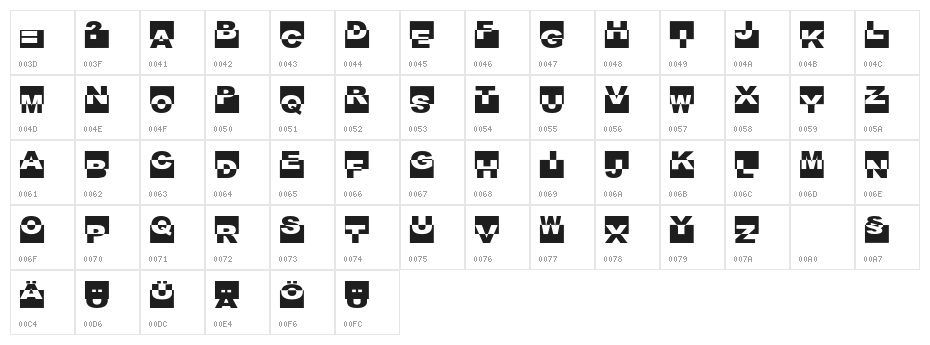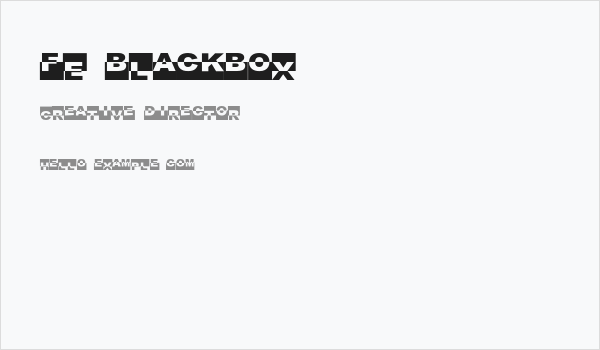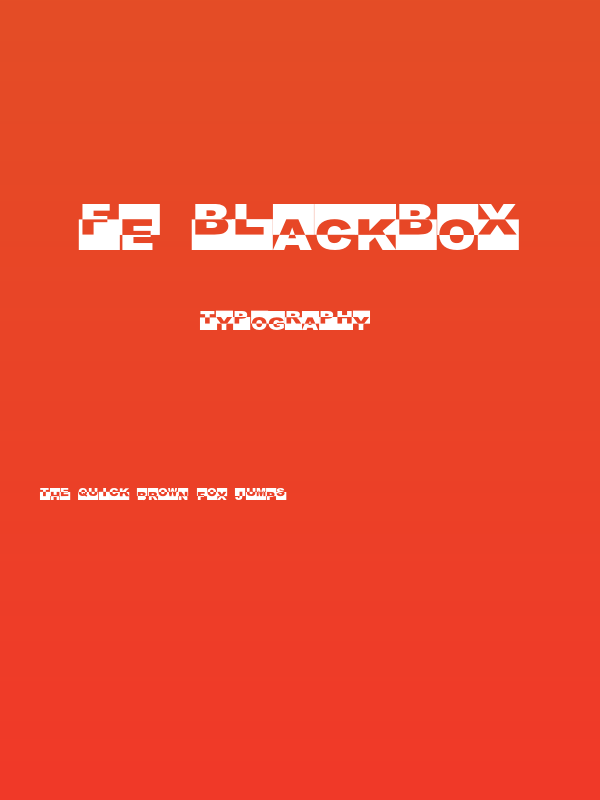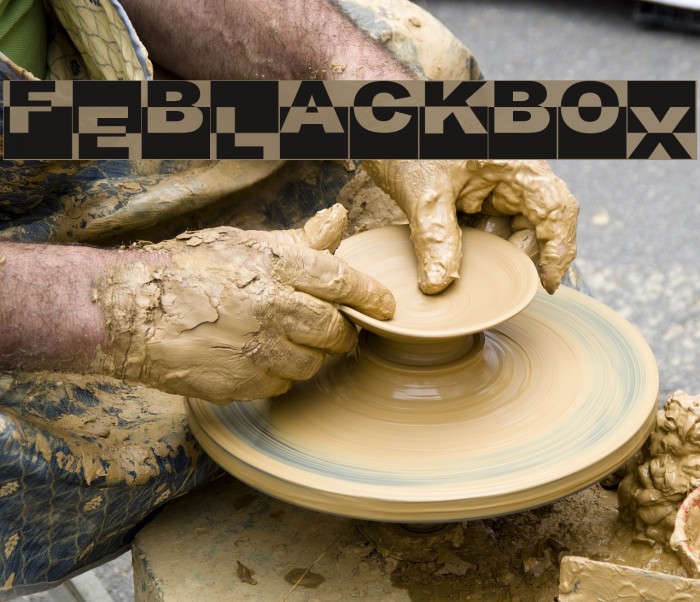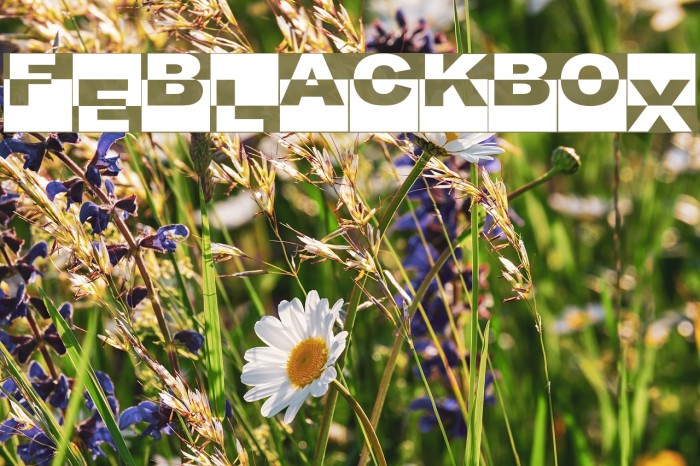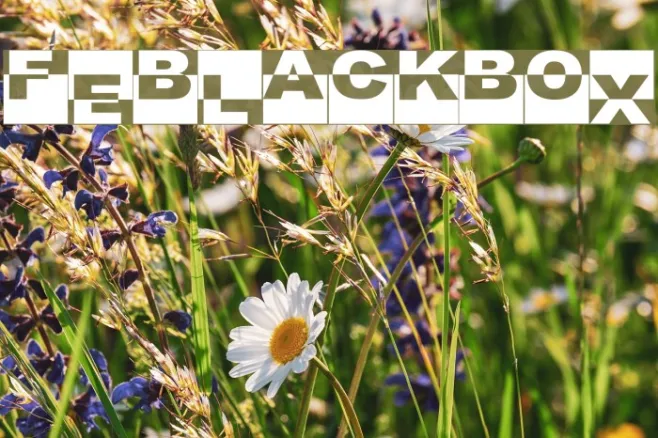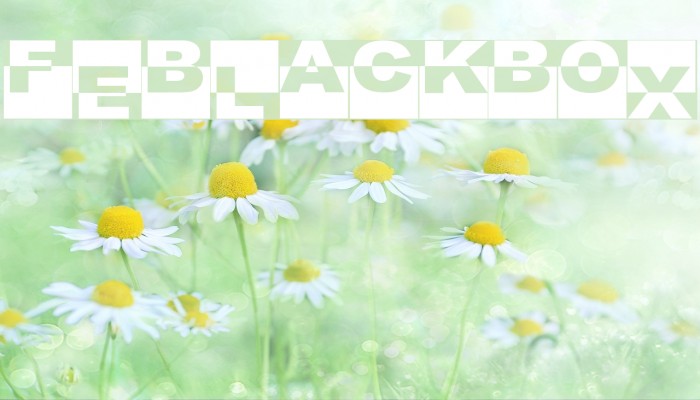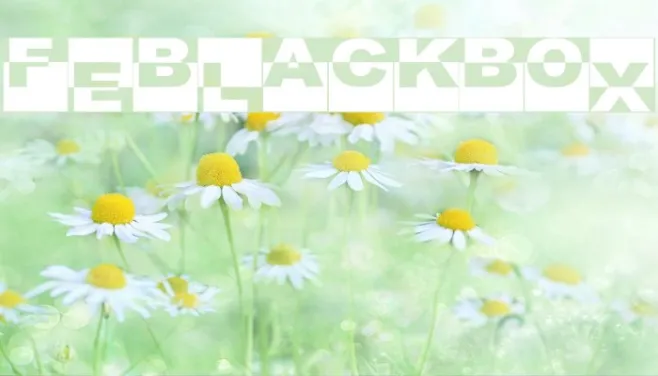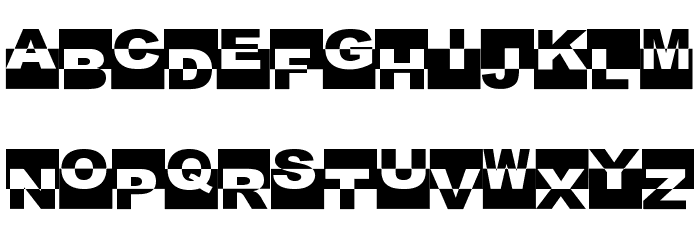
FE-BlackBox Font
FE-BlackBox Description
This font features a bold and striking design with each character encased in a solid black box, creating a high-contrast visual effect. The letters are uppercase and maintain a uniform height, contributing to a cohesive and structured appearance. The font's geometric style is emphasized by the sharp, clean lines and the consistent thickness of the strokes. This design choice makes it particularly eye-catching and suitable for impactful displays. The characters are tightly spaced, enhancing the compact and robust look of the text. The overall style is modern and assertive, making it ideal for projects that require a strong visual presence.
| Proposed Projects | Ideal for posters, headlines, branding, and any design requiring a strong visual impact. |